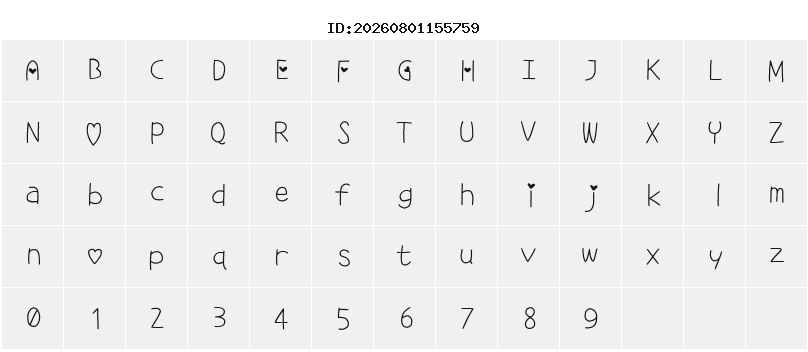
S2G らぶ Preview
• Font Name: S2G らぶ
• Font ID: S2G らぶ
• Full Font Name: S2G らぶ
• Version: Version 1.60
• PostScript Name: S2G-love
• Character Count: 14963
About S2G らぶ.ttf
S2G らぶ.ttf is a modern, elegant sans-serif font designed for ultimate readability and visual harmony. Perfect for branding, headlines, web design, and print materials.